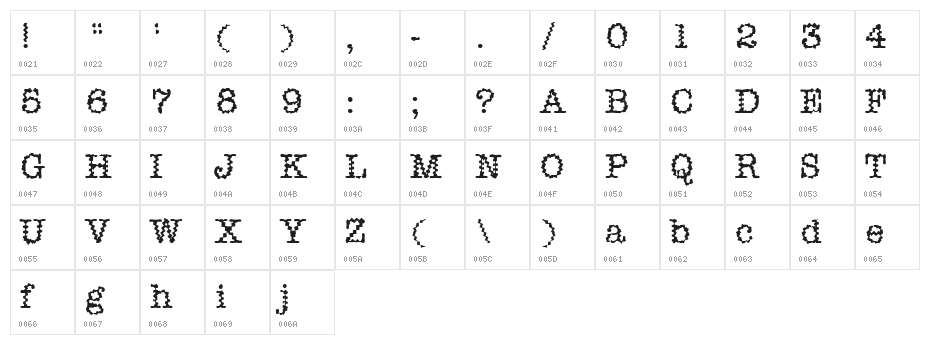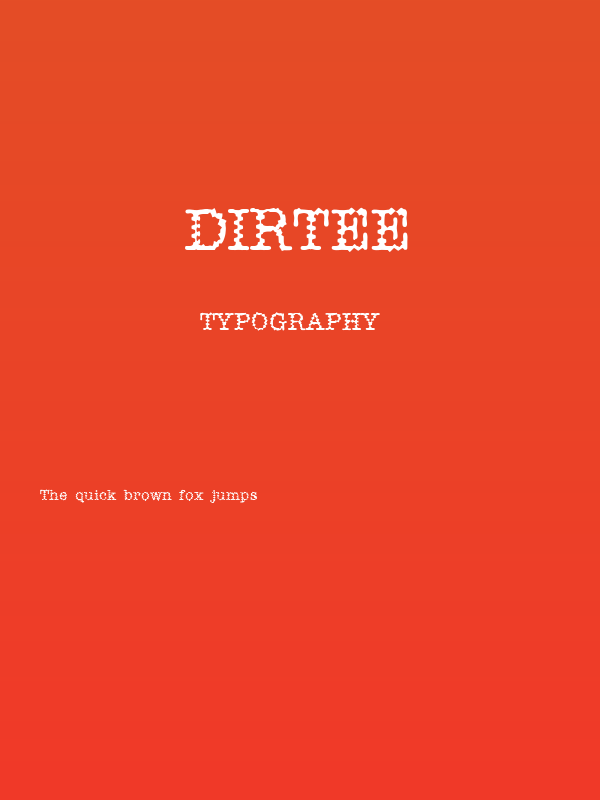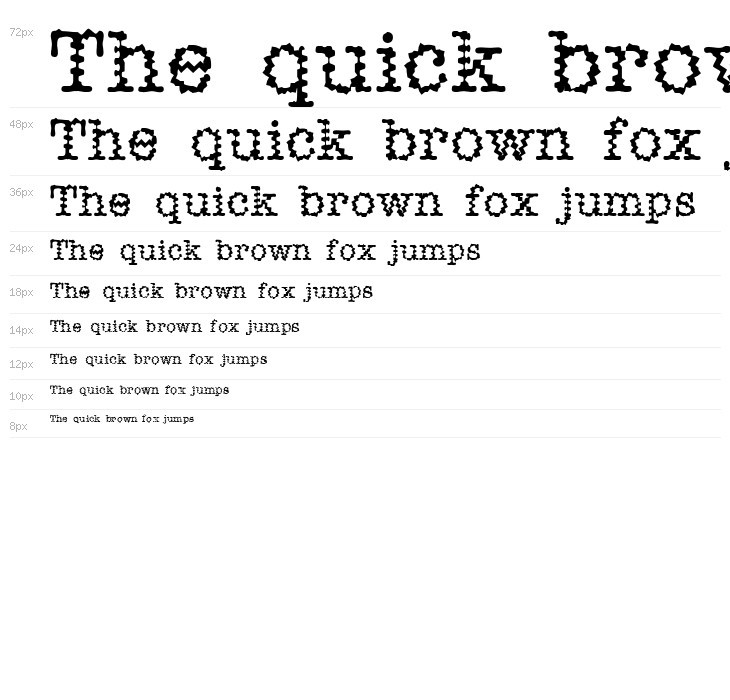
Dirtee Font
Dirtee Description
This font features a unique, rugged appearance with irregular, jagged edges that give it a distressed and grungy look. The characters are bold and have a strong presence, making them stand out with their distinctive style. The uppercase and lowercase letters maintain a consistent design, while the numbers and special characters follow the same aesthetic, ensuring uniformity across all glyphs. The font's irregular outlines create a sense of movement and energy, making it ideal for projects that require a bold and unconventional typeface.
| Overall Style | Grunge, Urban, Edgy |
| Use Case | Headlines, Posters, Album covers |
| Proposed Projects | Ideal for album covers, posters, urban-themed designs, and any project needing a bold, edgy typeface. |